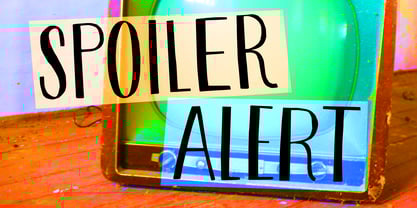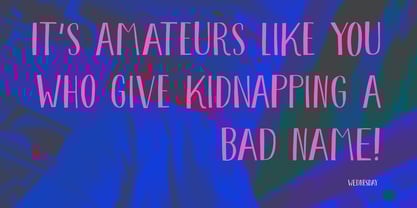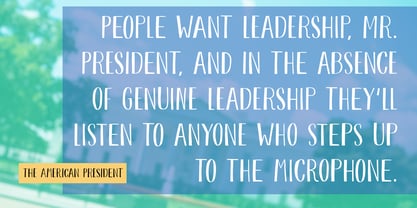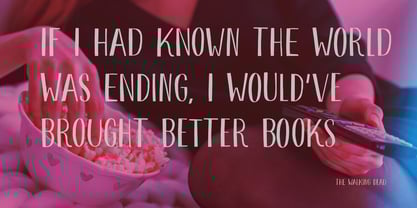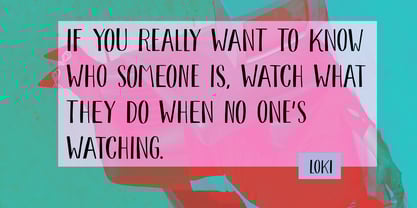
Spoiler Alert
by Hanoded
The Spoiler Alert Font Family was designed by David Kerkhoff and published by Hanoded. Spoiler Alert contains 2 styles and family package options. More about this family
Spoiler Alert: this text will tell you all about my new font! ;-)
I don’t have a TV in my house (nor will I ever). Not because I am religious (I am not), nor because I am against TV (I am not). It’s just that I don’t care for what’s on the TV. It’s talkshows, games, quizzes and bad news, so I decided to do away with my TV, oh, I’d say about 35 years ago. Never looked back!
Spoiler Alert is a really nice handmade font. It comes with a set of auto-rotating alternates for the lower case glyphs and more diacritics than you can poke a stick at.
About Hanoded
Hanoded is run by Dutchman David Kerkhoff. His fonts are a mishmash of styles, as he just creates whatever pops into his head. You will find a lot of brush fonts in his collection, as his favourite tools are brushes and Chinese ink, with cartoon style fonts and script fonts complementing his repertoire. Aside from making fonts, David occasionally guides tours in far-flung places, renovates his '30's house and tries reasoning with his wife and (teenage) kids. Not an easy task!